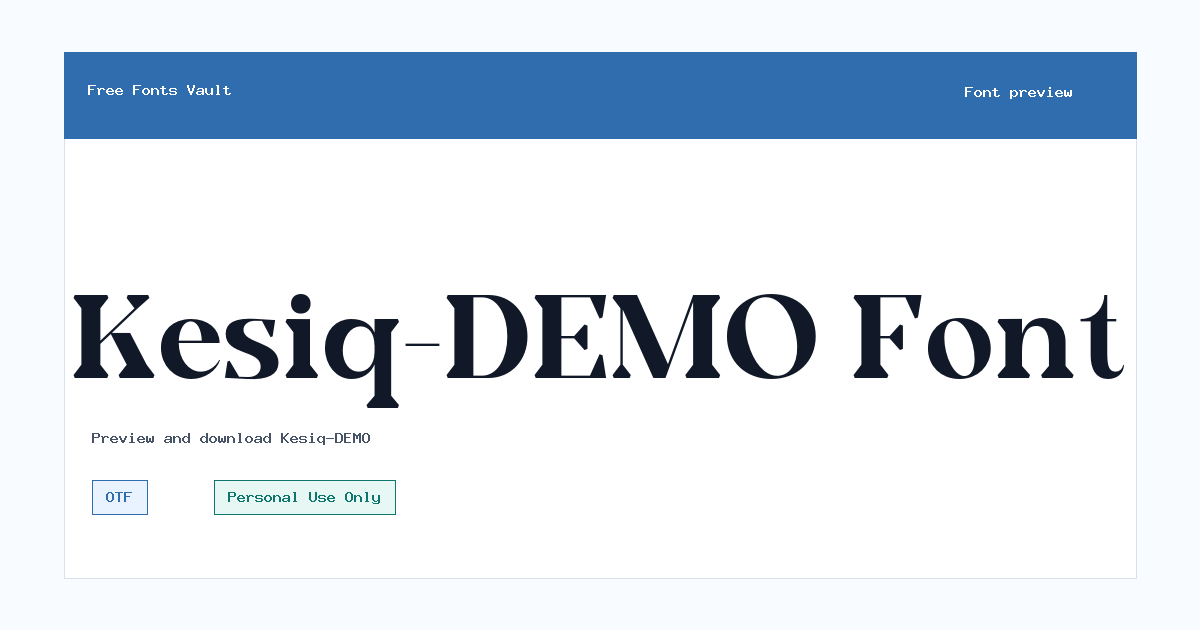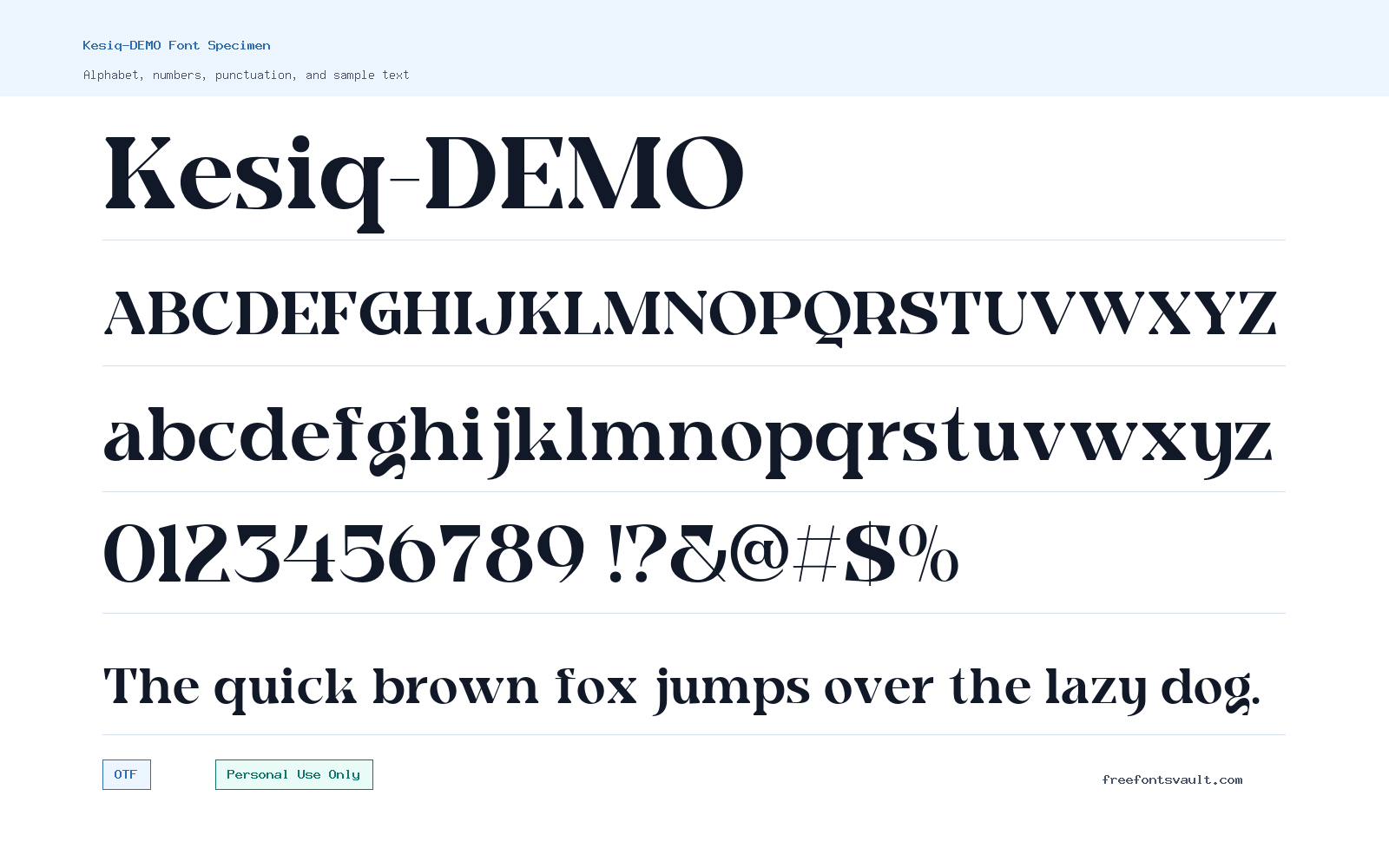
Kesiq-DEMO
Kesiq-DEMO is a serif demo font for personal-use design testing, previews, and non-commercial creative drafts. It comes in a regular OTF style, making it easy to install and try in common design apps before deciding how it fits your project.
Kesiq-DEMO is best approached as a display serif rather than an all-purpose reading font. The name and license label identify it as a demo release, so it is useful for trying the look of the typeface in titles, logo sketches, poster headlines, social graphics, and presentation mockups. Since the available style is regular weight, it is most practical when you want one clear typographic voice instead of a large multi-weight family. Test it at different sizes in the preview tool: a serif font can feel refined in a large headline, but the same details may become harder to read when used too small.
For logo work, Kesiq-DEMO can be useful in early concept stages where you want to explore a serif mood without committing to a final licensed asset. Try it with short brand names, initials, product labels, or editorial-style headings. Keep the word count low so the letter shapes have room to show. For posters and web mockups, use it as a headline or section title, then pair it with a clean sans serif for body text, navigation, captions, or long descriptions. That contrast keeps the layout readable while letting the serif carry the visual character.
Because only a regular OTF file is listed, plan your layout around that limitation. If you need bold hierarchy, create contrast through size, spacing, color, or layout instead of relying on extra weights. Avoid forcing fake bold or fake italic in professional work, as synthetic styling can distort the font and make the design look less polished. In web mockups, check the font at desktop and mobile sizes, especially if you are using it for hero text, buttons, or image-based promotional graphics.
- Serif demo style suited to short display text, headings, logo drafts, and poster concepts.
- Single-style setup that works best when hierarchy is built with size, spacing, and layout.
- Logo concepts and brand-name sketches for non-commercial testing.
- Poster titles, quote graphics, and editorial-style headlines.
- Web design mockups where the font is used as a hero or section heading.
- Personal projects, moodboards, invitations, and typography experiments.
Use Kesiq-DEMO for short text where the serif details can be seen clearly. Try it in large headings, logo drafts, poster titles, and mockup hero text. Pair it with a simple sans serif for paragraphs, menus, and captions, and avoid forcing artificial bold or italic styles if your software offers them.
What is Kesiq-DEMO best used for?
It is best for short display text such as logo drafts, poster headlines, title graphics, editorial-style headings, and personal design mockups.